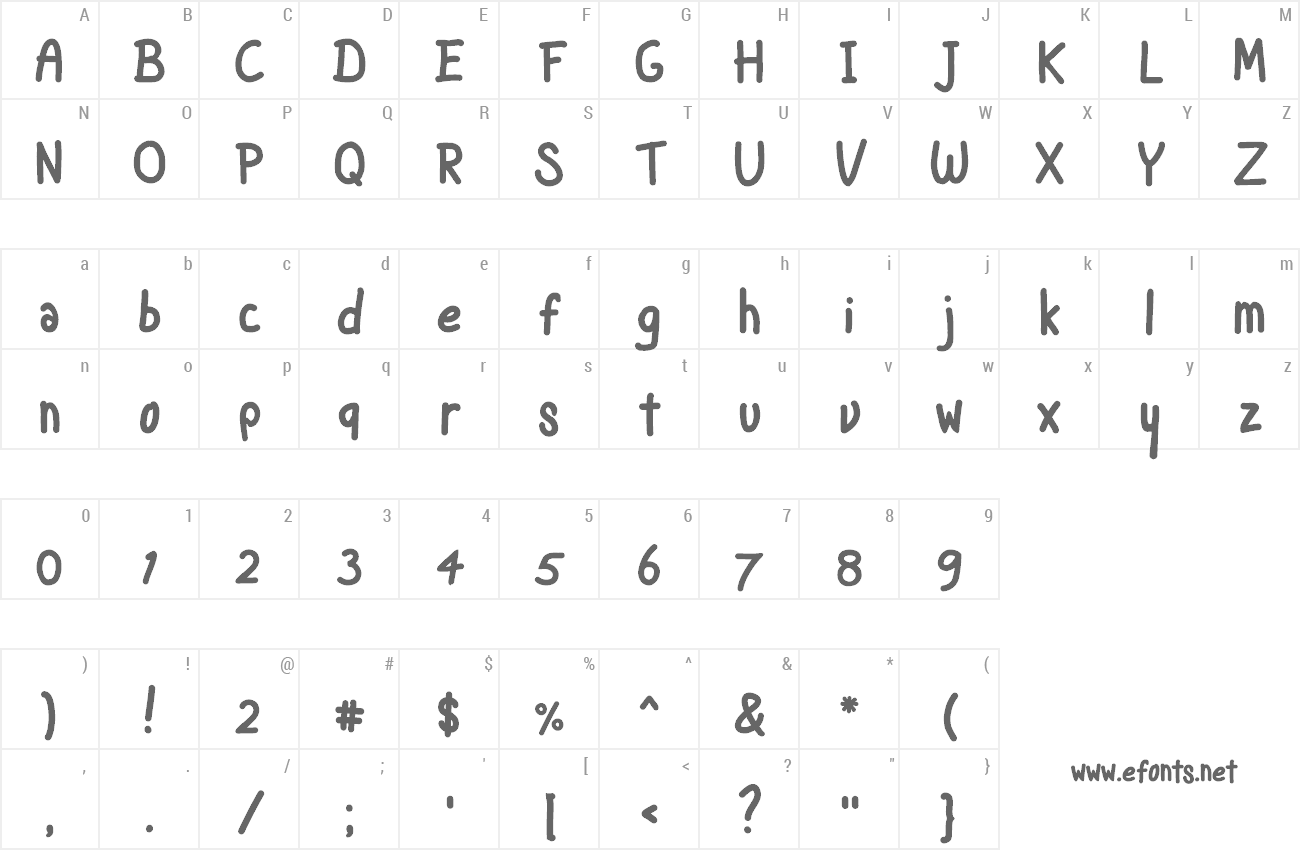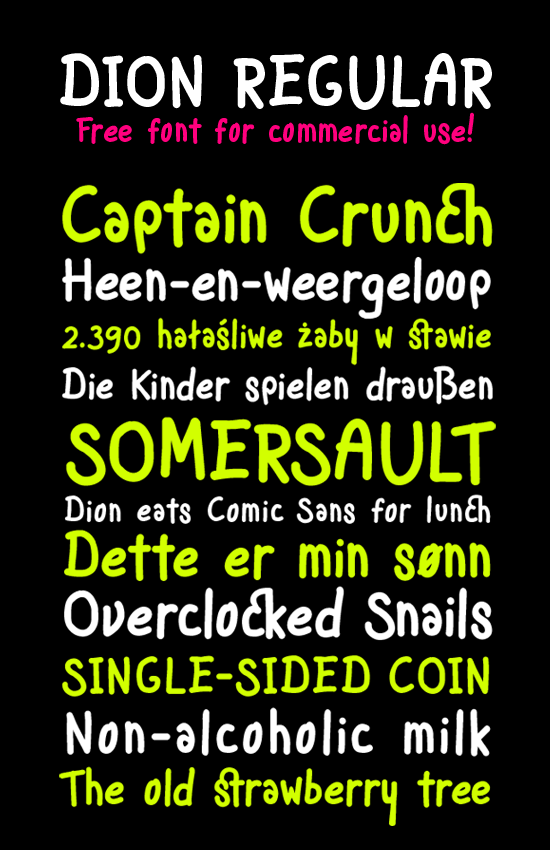
| Font name: | Dion |
| Author: | Martin Silvertant |
| Note by Martin Silvertant | |
A typeface suitable for comics and cartoons and a nice alternative to Comic Sans. Dion features extensive language support and 23 ligatures accessible by the OpenType panel in your design software. |